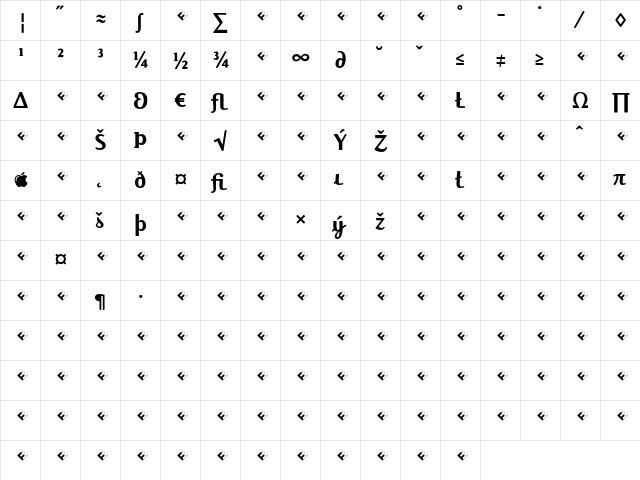
Jackie-AlternateExpert Bold
Design Context for Jackie-AlternateExpert Typeface
Jackie-AlternateExpert offers clean, dependable letterforms without strong stylistic allegiance, making it a practical choice for designers who need flexibility. The heavy weight commands attention and anchors typographic hierarchies.